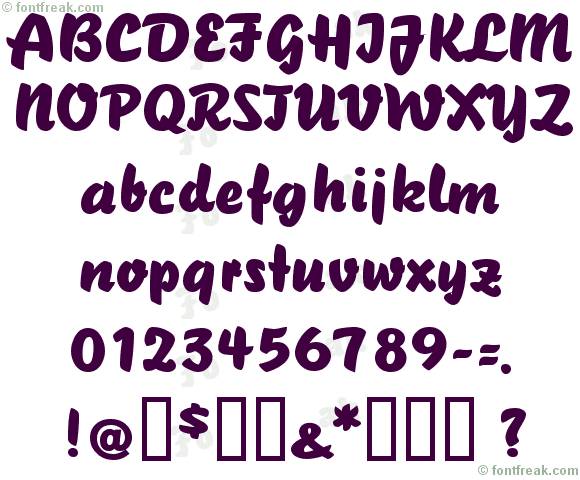
About Queen Of Corona
Discover the enchanting Queen Of Corona font by Dinctype, a captivating display typeface that seamlessly blends elegance with a modern flair. This freeware font stands out with its unique characteristics, making it a perfect choice for those seeking to create eye-catching designs. The Queen Of Corona boasts a striking combination of bold strokes and delicate curves, offering a remarkable contrast that draws the eye. Its well-balanced spacing ensures legibility while maintaining a decorative aesthetic that adds personality to any project.
Ideal for a variety of applications, the Queen Of Corona font shines in wedding invitations, where its romantic flair can evoke emotion and sophistication. It is also well-suited for movie posters, capturing attention with its artistic style and making titles pop. Restaurant menus can benefit from this font’s charm, enhancing the dining experience by adding a touch of creativity to the written word. Additionally, small business branding and promotional materials can leverage the distinctive qualities of this typeface to stand out in competitive markets.
Targeting graphic designers, small business owners, and content creators alike, the Queen Of Corona font free download provides an accessible option for anyone looking to infuse their projects with a sense of style and individuality. Its artistic essence resonates with those who appreciate the finer details in design.
What sets the Queen Of Corona apart is its ability to marry functionality with flair. This font not only serves as a tool for communication but also as an artistic expression, making it a valuable asset for any designer's toolkit. Whether you're crafting a heartfelt invitation or a bold advertisement, the Queen Of Corona brings a touch of elegance that elevates your work to new heights.